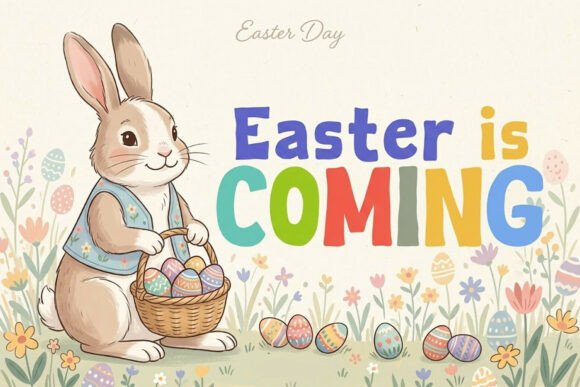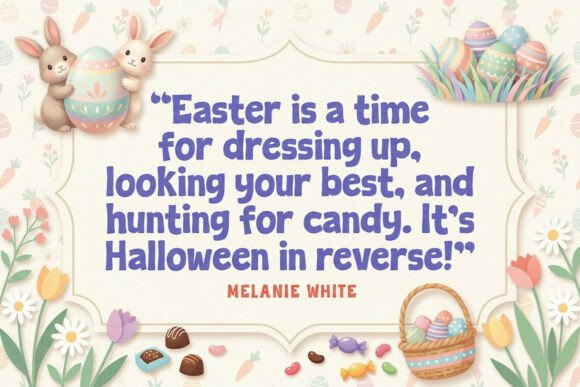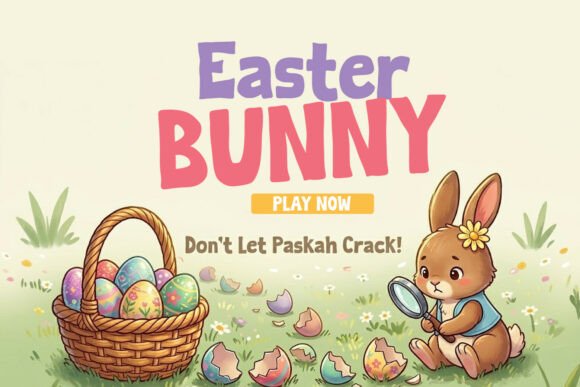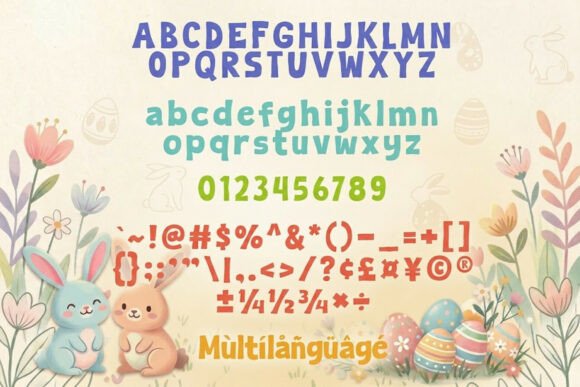
Easter Joys Font: The Perfect Addition to Your Design Collection
Are you a designer or crafter looking for a font that can add a touch of modern cuteness to your projects? Look no further than Easter Joys Font! This versatile and charming display font is perfect for a wide range of design applications, from posters and logos to magazines, book covers, and banners.
What Makes Easter Joys Font So Special?
Easter Joys Font is a modern and cute display font that is sure to bring a smile to your face. Its unique and playful design makes it perfect for creating eye-catching designs that will stand out from the crowd. Whether you’re working on a project for Easter or just want to add a touch of whimsy to your design, Easter Joys Font is the perfect choice.
One of the best things about Easter Joys Font is its versatility. It can easily be matched to an incredibly large set of projects, making it a great addition to your design collection. Here are just a few ideas to get you started:
- Posters: Create eye-catching posters for Easter events, sales, or promotions.
- Logos: Use Easter Joys Font to create a unique and memorable logo for your business or brand.
- Magazines: Add a touch of cuteness to your magazine layouts with Easter Joys Font.
- Book Covers: Create a standout book cover with Easter Joys Font that will grab readers’ attention.
- Banners: Design beautiful banners for Easter events or celebrations.
Why Choose Easter Joys Font?
So, why should you choose Easter Joys Font for your design projects? Here are just a few reasons:
- Unique Design: Easter Joys Font has a unique and playful design that will set your projects apart.
- Versatility: This font can be used for a wide range of design applications.
- Ease of Use: Easter Joys Font is easy to use and can be easily matched to a variety of projects.
- Modern Look: This font has a modern look that will give your projects a fresh and contemporary feel.
Tips for Using Easter Joys Font
Here are a few tips for using Easter Joys Font in your design projects:
- Experiment with Colors: Easter Joys Font looks great in a variety of colors, so don’t be afraid to experiment and find the perfect color scheme for your project.
- Play with Sizes: This font can be used at a variety of sizes, from large display font to smaller body text.
- Mix and Match: Try pairing Easter Joys Font with other fonts to create a unique and interesting design.
Easter Joys Font is a modern and cute display font that is perfect for designers and crafters looking to add a touch of whimsy to their projects. With its unique design, versatility, and ease of use, this font is sure to become a favorite in your design collection. So why wait? Get Easter Joys Font today and start creating lovely designs that will stand out from the crowd!